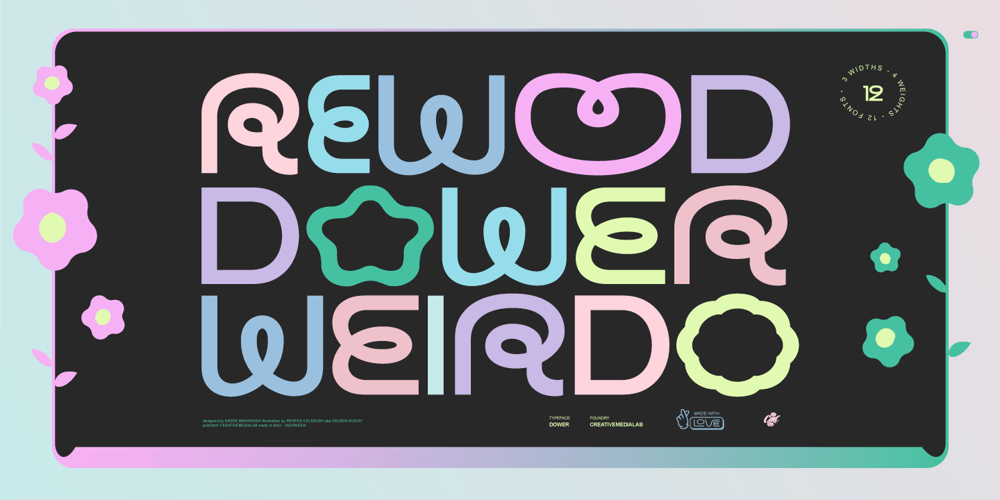
Dower
Dower font
Dower Font Family was designed by Kadek Mahardika and published by Creativemedialab. Dower contains 13 styles and family package options. Dower is a playful decorative geometric sans serif. Inspired by the doodle style and hand-drawn lettering. Dower contained three widths: Condensed, Normal and Expanded, four styles each, including dozens of ligatures.You can use Dower in many types of creative modern concept designs.